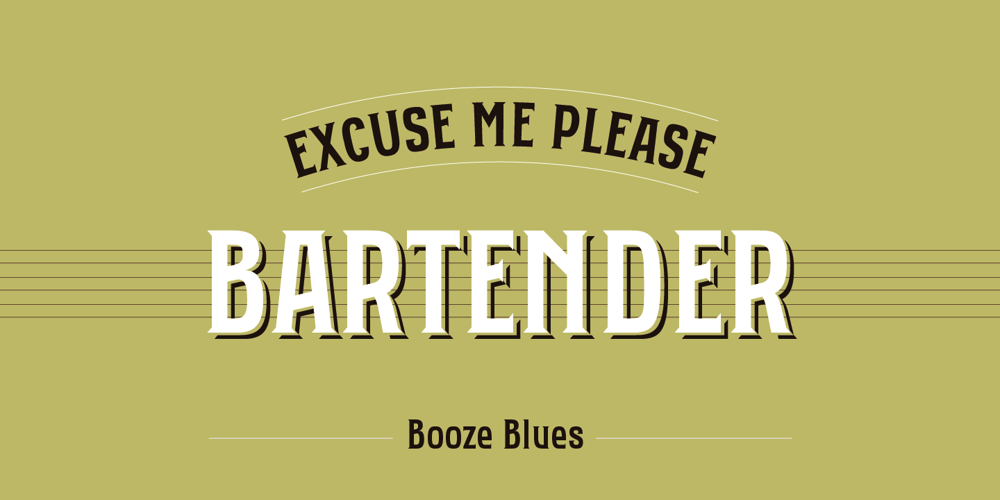
Bartender
Bartender font
Bartender Font Family was designed by Dusan Jelesijevic and published by Tour De Force. Bartender contains 2 styles and family package options. Small family called Bartender, for the lovers of retro style typefaces. Ideal for product names, packages, labels, old fashioned coffee shops, bars and everything with specific characteristics of past times.